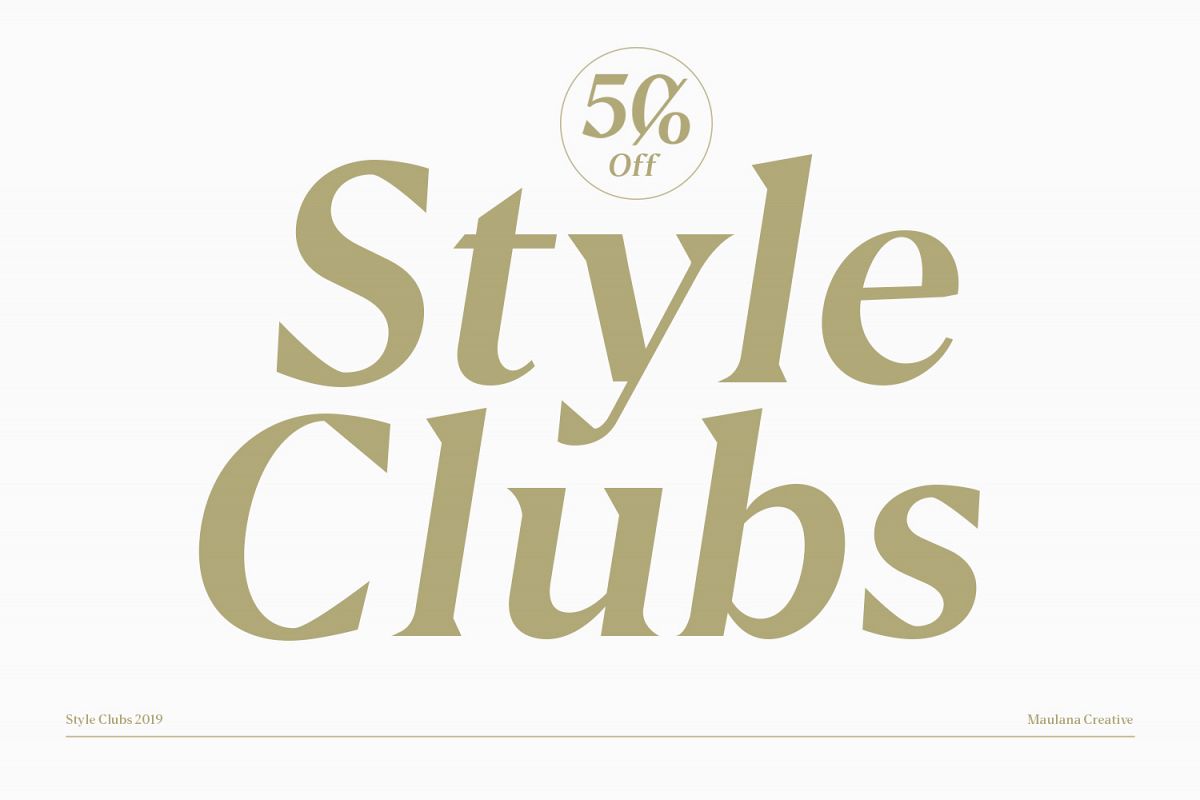
Style Clubs Serif is a single weight black serif, modern casual typeface perfect use for headline, logo, magazine, and any editorial design needs also readable body text.Font Includes: